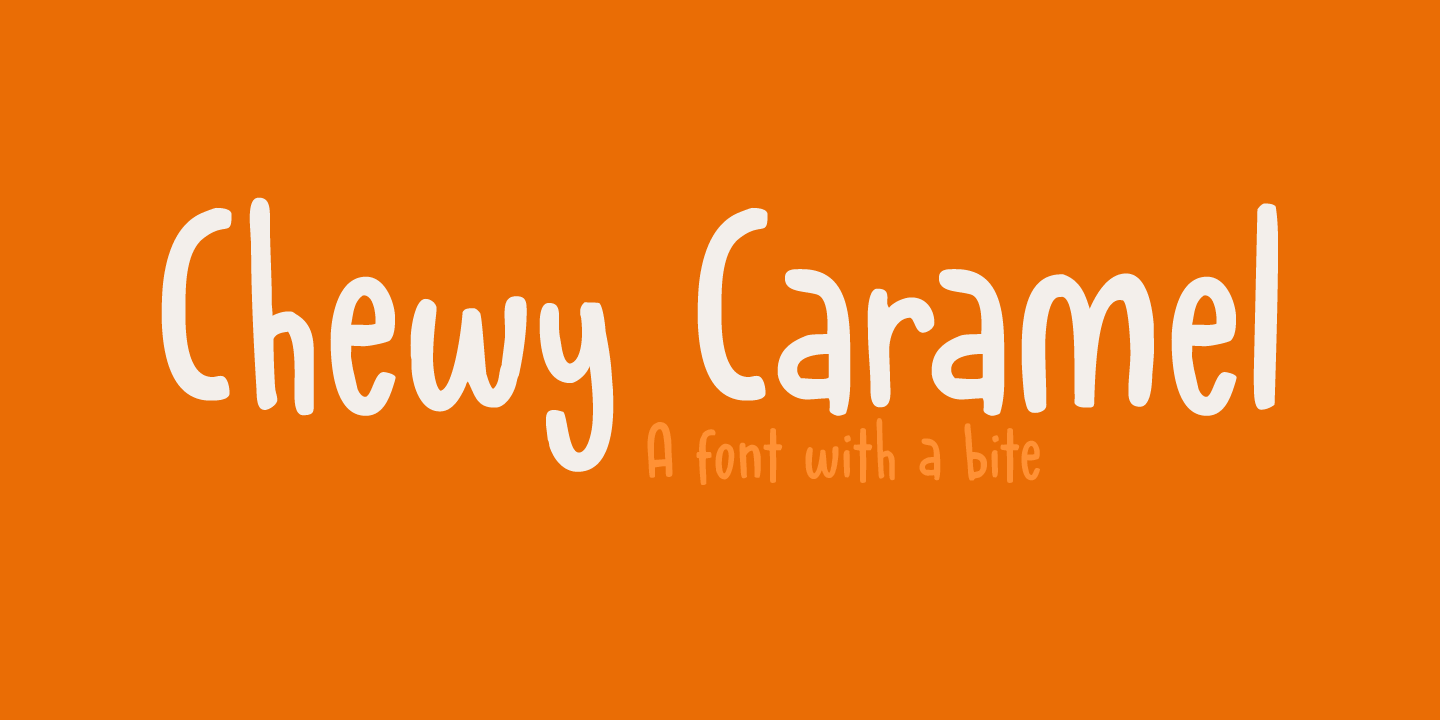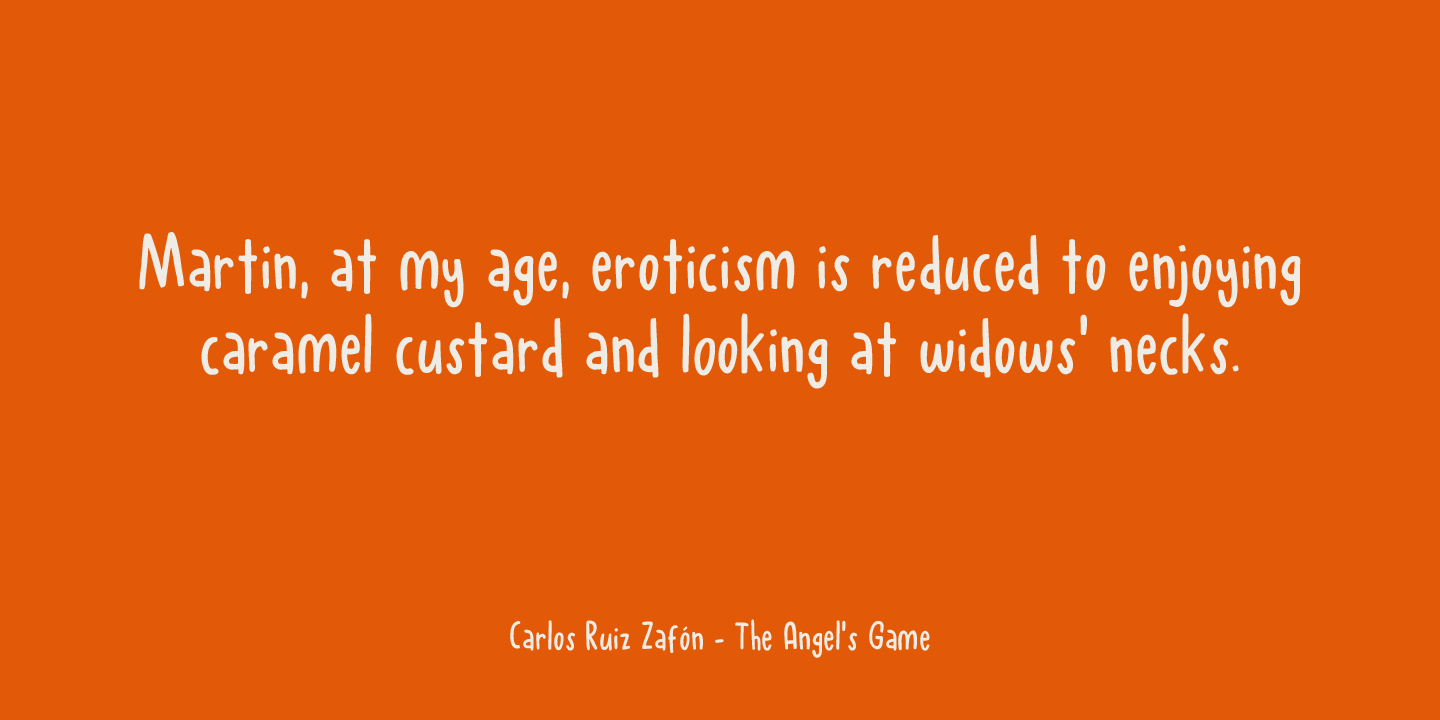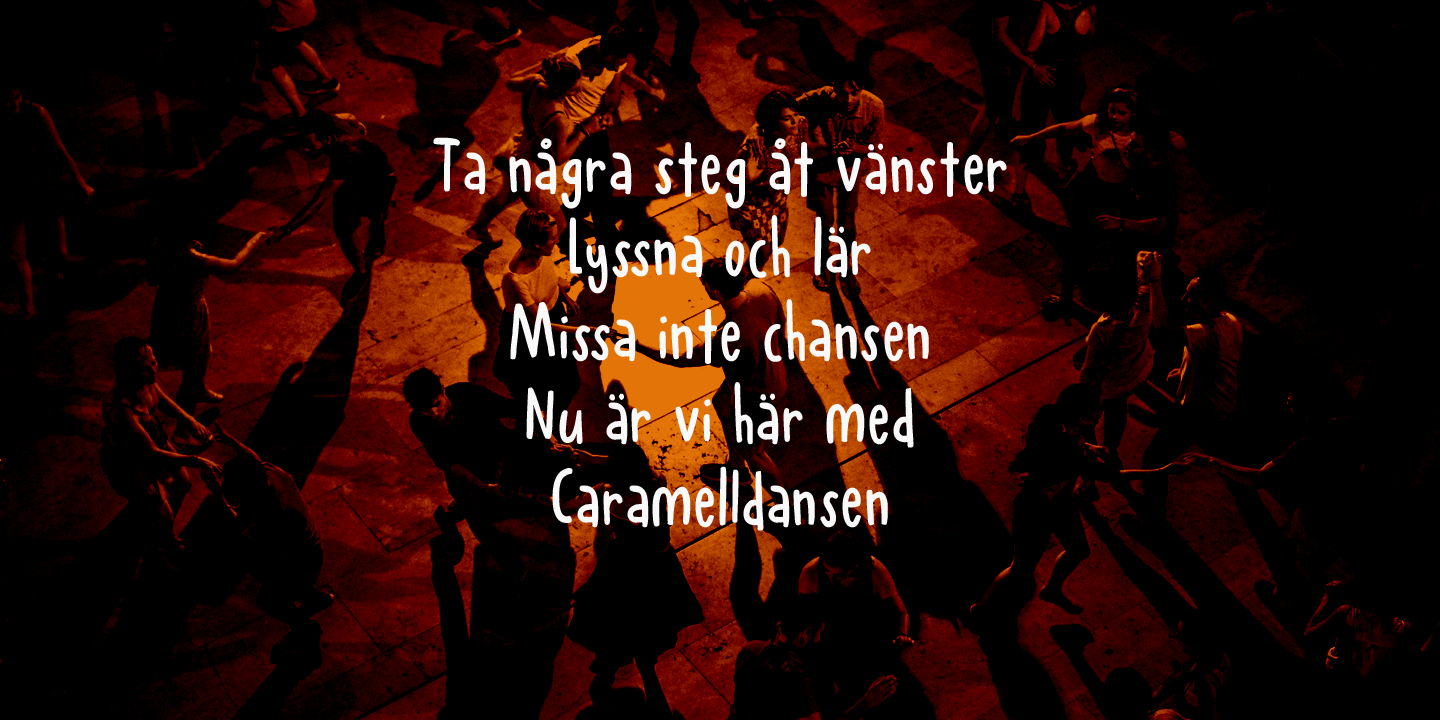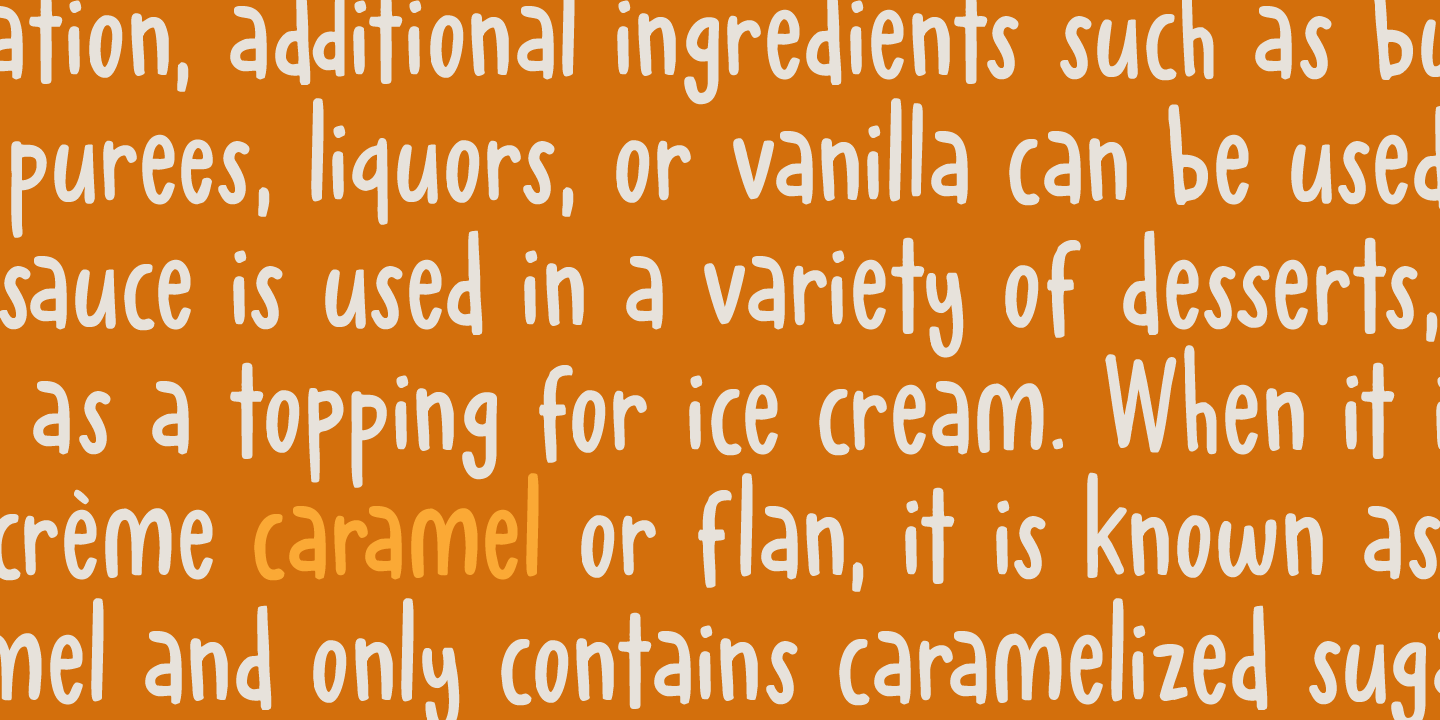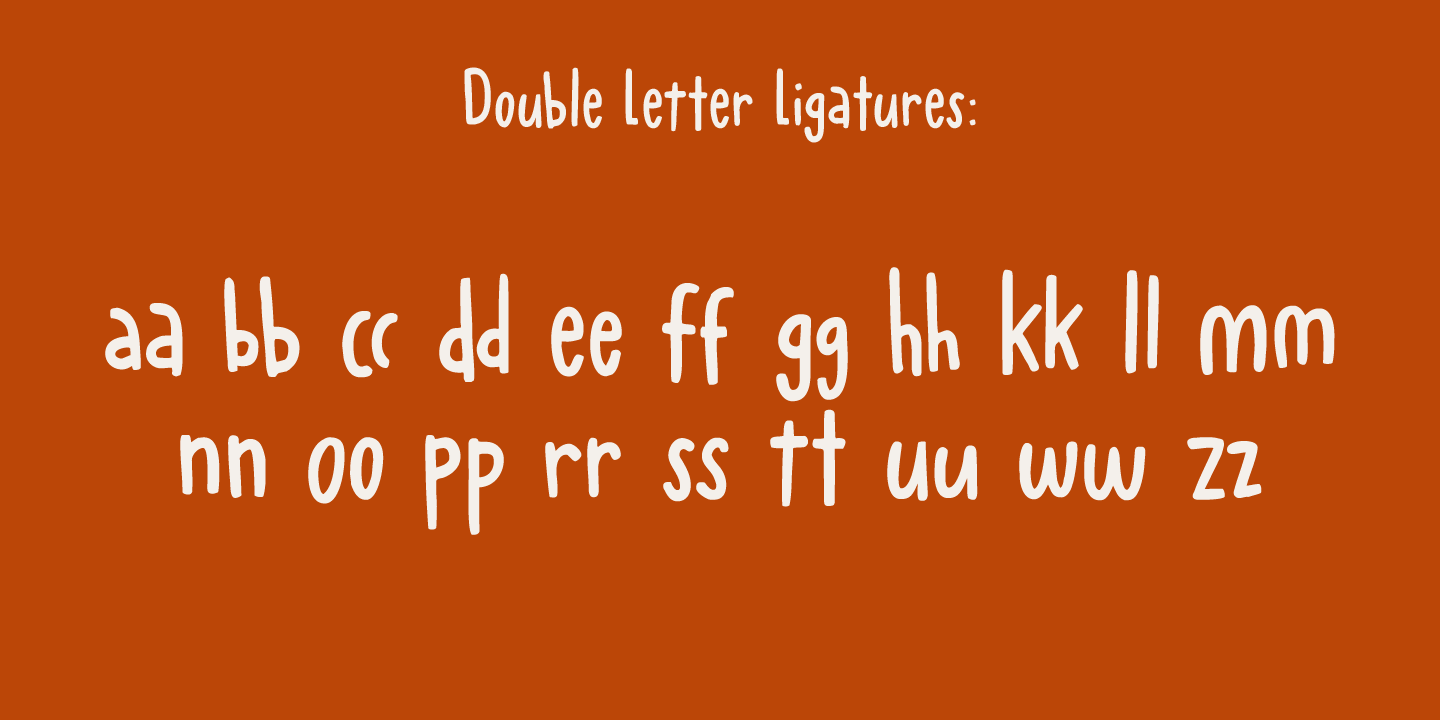
Chewy Caramel
I really don't like candy. In fact, I even hate the smell of candy! But? You can wake me up for caramel in any form or shape! When I was a kid, we used to get a tin of wrapped English ?quality? toffees for Christmas. My favourites were the big, flat chewy caramels in a bright purple wrapper!
Chewy Caramel is a happy handmade font, ideal for book covers, candy wrappers and labels. Comes with double-letter ligatures for the lower case.
Chewy Caramel by Hanoded